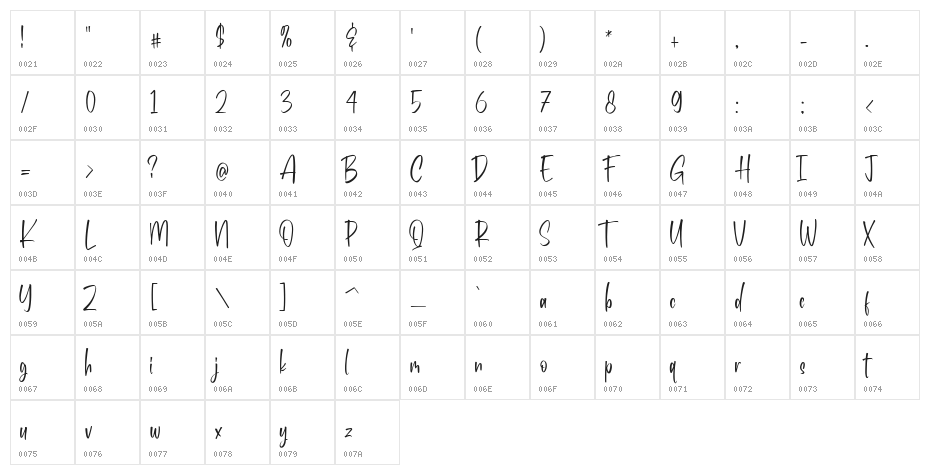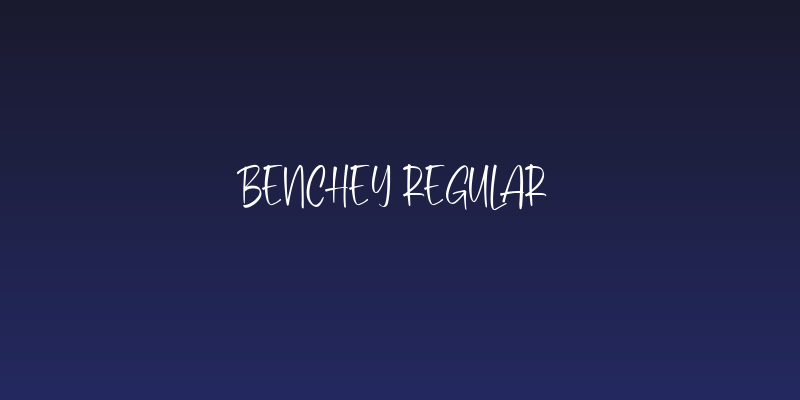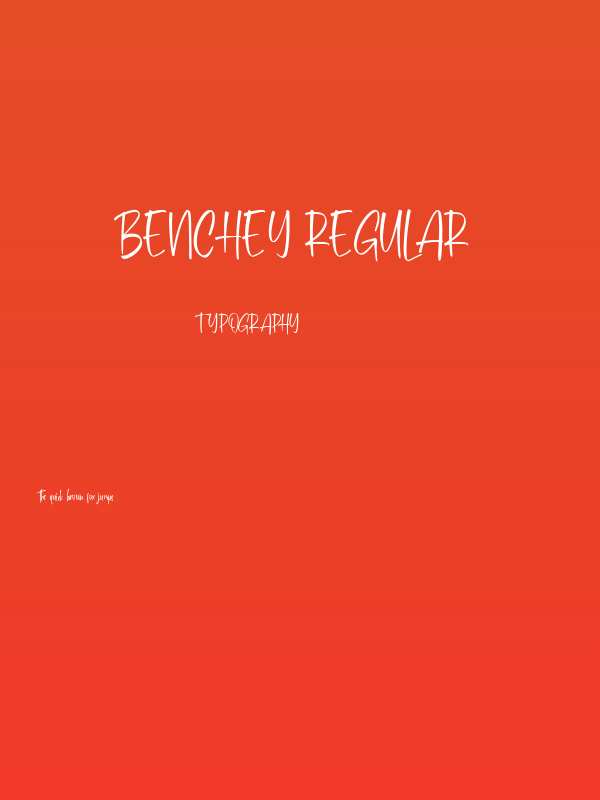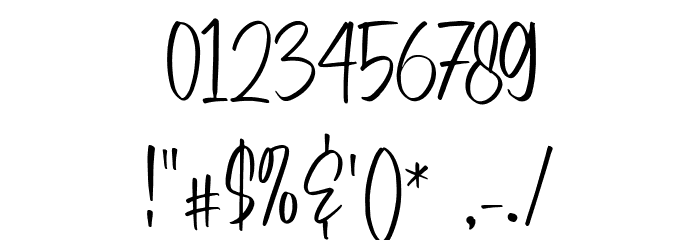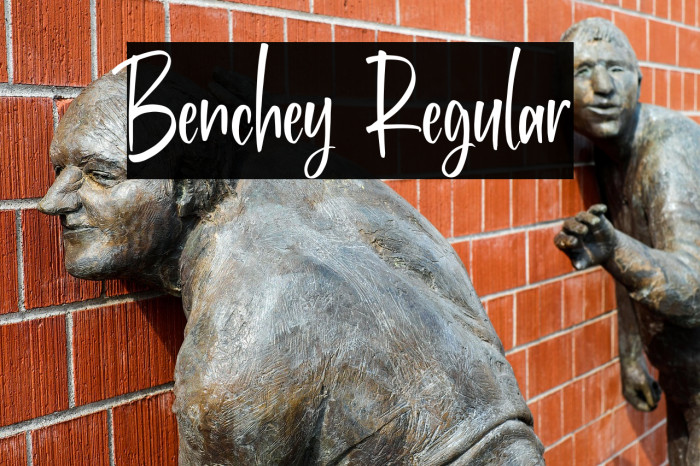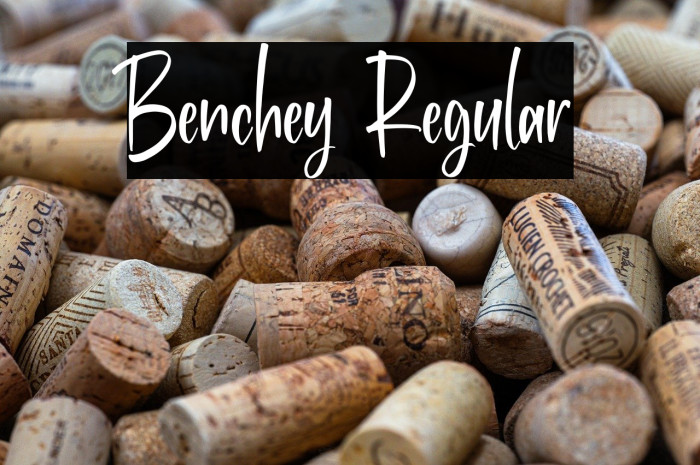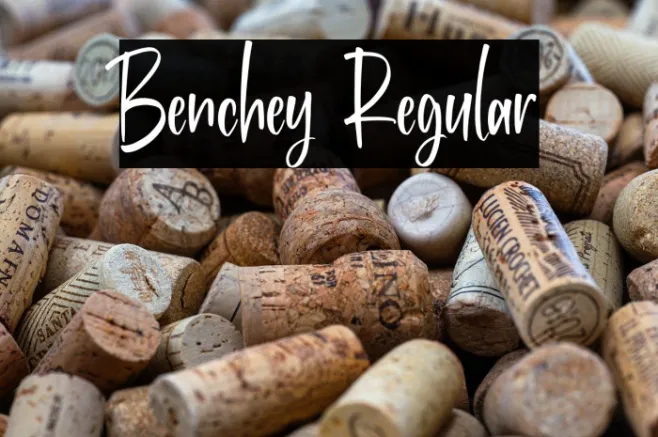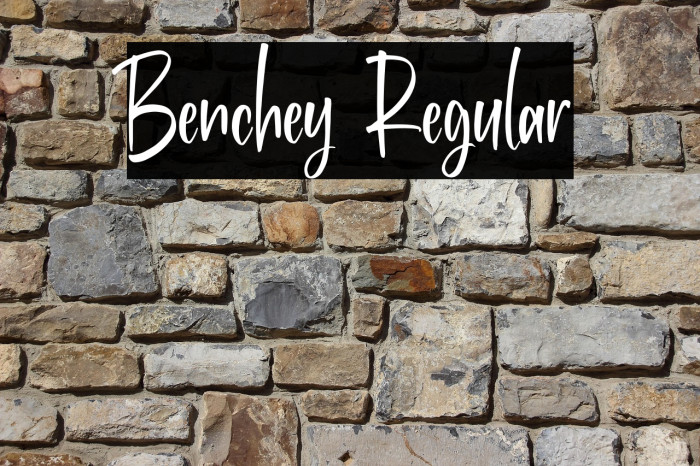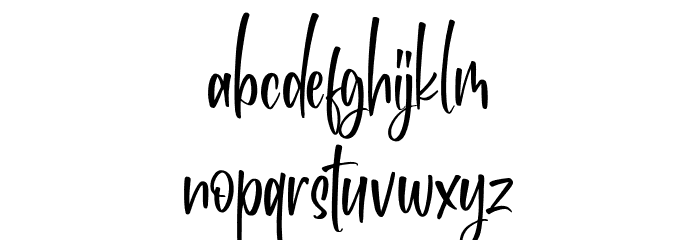
Benchey Regular Font
Benchey Regular Description
This font features a playful and casual handwritten style, characterized by its tall, narrow letterforms and slightly irregular strokes. The uppercase letters are bold and expressive, with a dynamic flow that adds a sense of movement. The lowercase letters maintain this lively aesthetic, with a slightly more compact appearance. The numerals are consistent with the overall style, offering a cohesive look across all characters. Special characters are included, maintaining the same energetic and informal vibe. This font is perfect for projects that require a personal touch, such as invitations, greeting cards, or branding for creative businesses.
| Proposed Projects | Ideal for invitations, greeting cards, creative branding, and personal projects. |